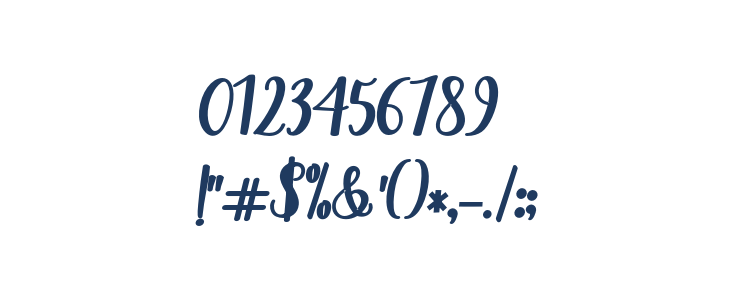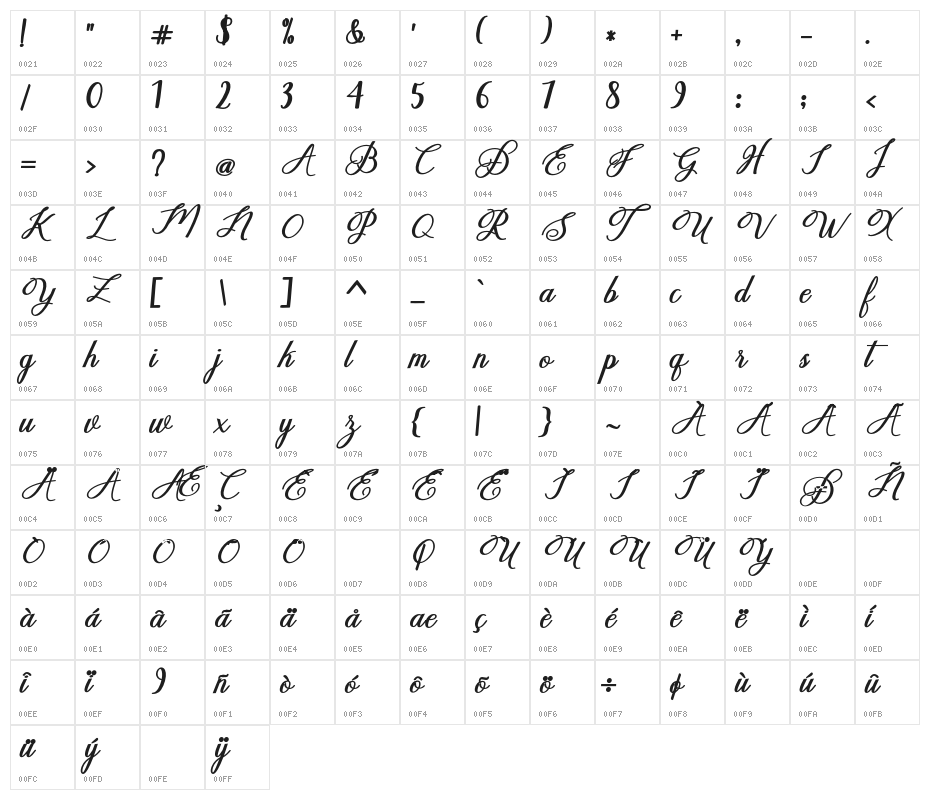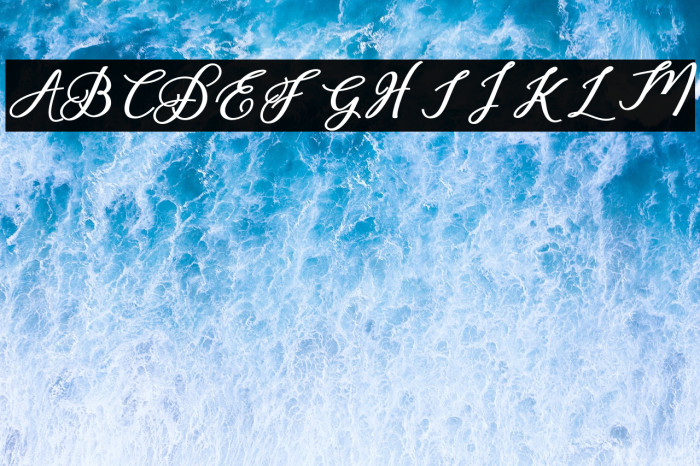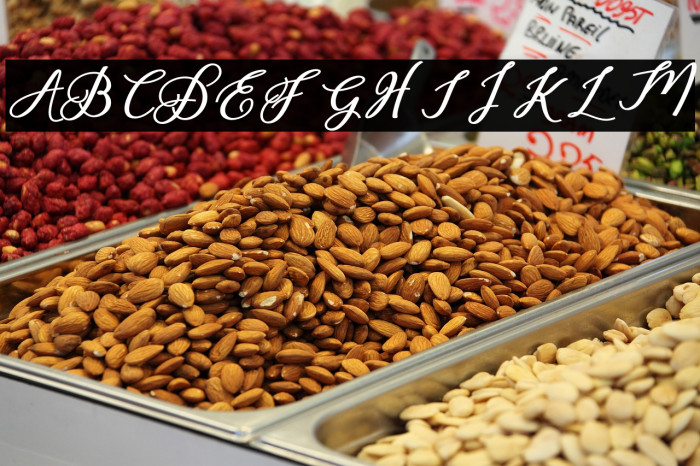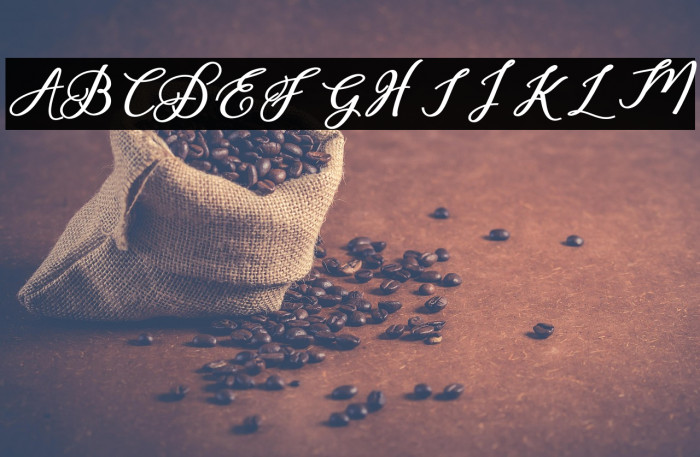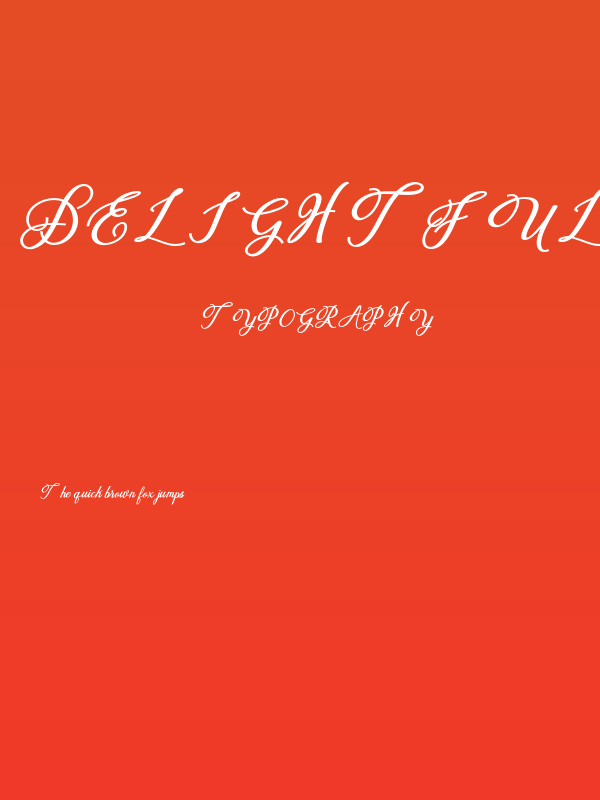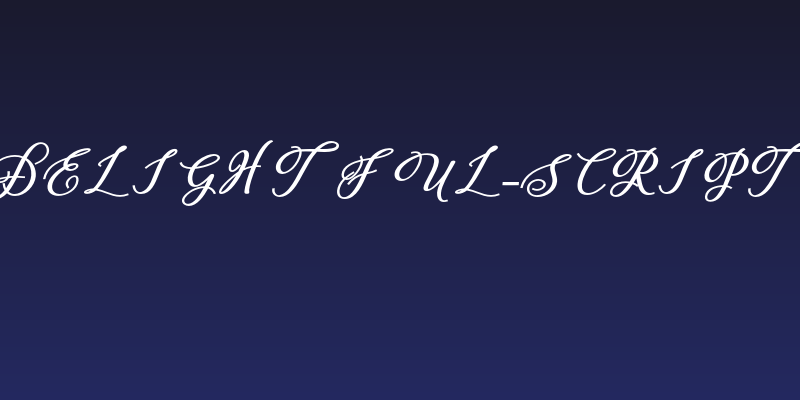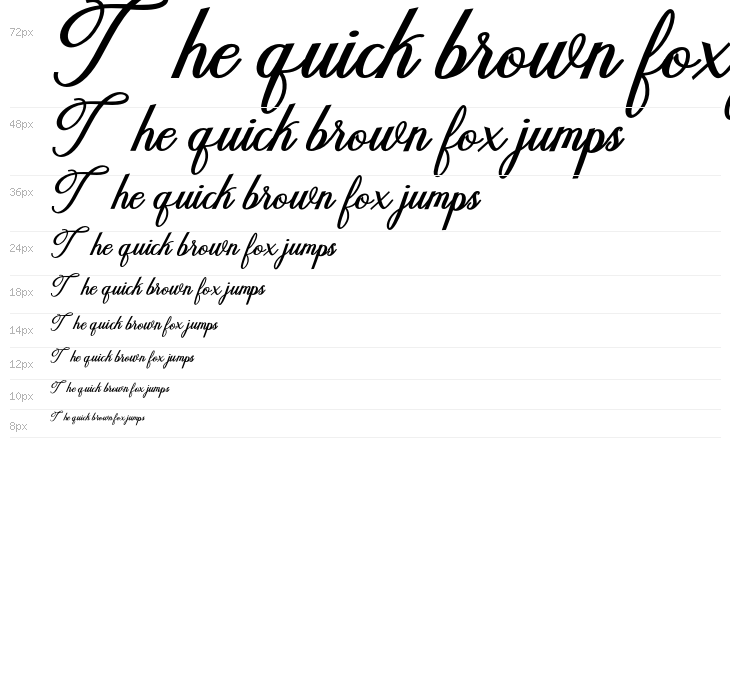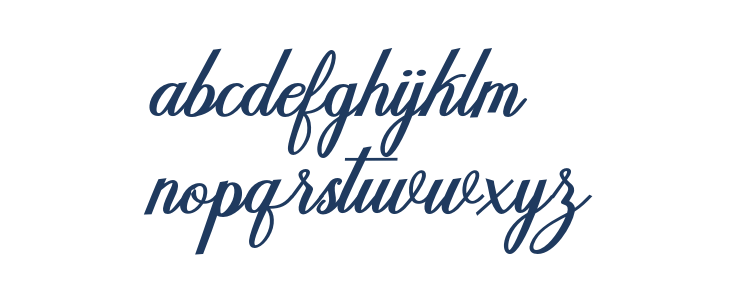
delightful-script Font
delightful-script Description
This elegant script font features a flowing, cursive style with a sophisticated and graceful appearance. The uppercase letters are characterized by their intricate loops and swirls, giving them a decorative flair. The lowercase letters maintain a smooth, connected flow, enhancing readability while retaining an artistic touch. The numerals are bold and slightly slanted, complementing the overall script style. Special characters are designed with the same attention to detail, ensuring consistency across the font. This font exudes a sense of elegance and charm, making it suitable for a variety of creative applications.
Use CaseLogos, Invitations, Decorative text
Proposed ProjectsIdeal for wedding invitations, greeting cards, branding, and logo design.